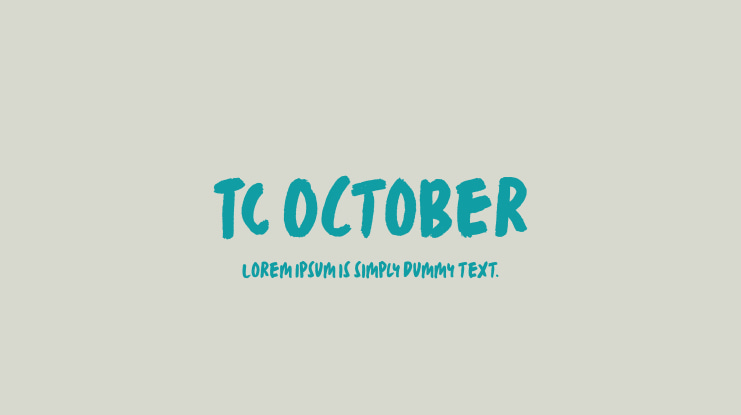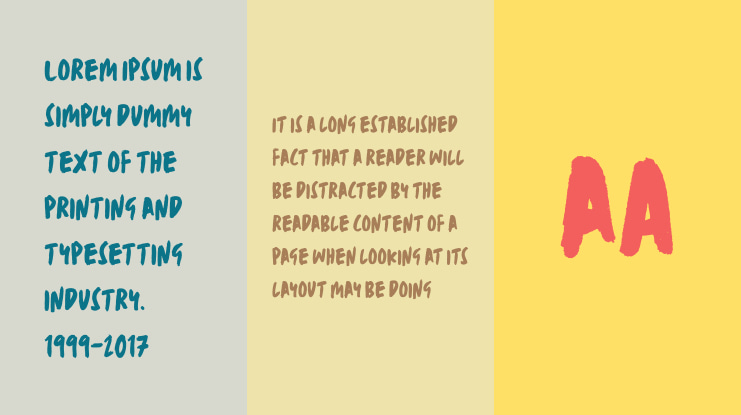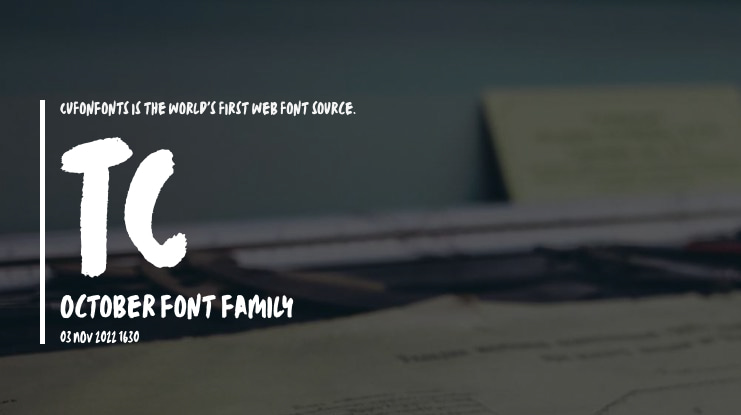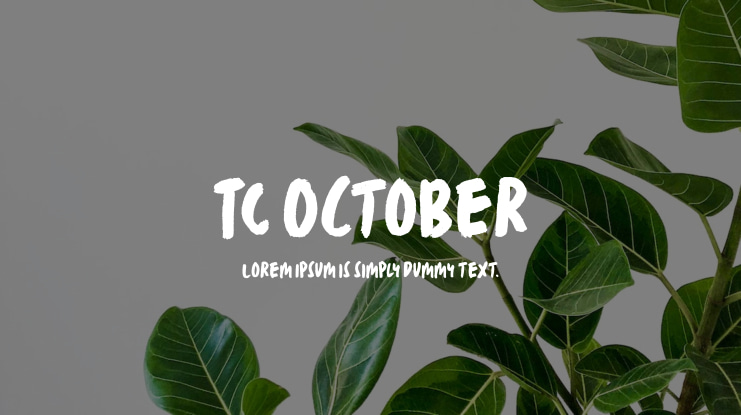
ABOUT THE FULL FONT COLLECTION:
Proudly introducing the Full’A’Quirks Handwritten Font Pack! Inside, you’ll discover 4 expressively hand-lettered typefaces, each with 4 unique alternates per letter (A-Z) to help you achieve the perfect authentic look. Before taking on this project, I set myself the task of creating and launching the collection within 7 days (something that typically takes 4+ weeks). As you can see, I didn’t sacrifice quality. By adding such a tight deadline, I had no choice but to throw the rulebook out the window. Instead of overthinking each letter style, I focused on creating something authentic.
I couldn’t be happier with the end result, and the 7-day deadline will be making many more appearances. Each typeface is filled with personality, quirkiness, and versatility. They work fantastically well with one another and modern serif/sans typefaces, across a broad range of design subjects, so be brave and don’t let their jovial appearance hold them (or you) back!